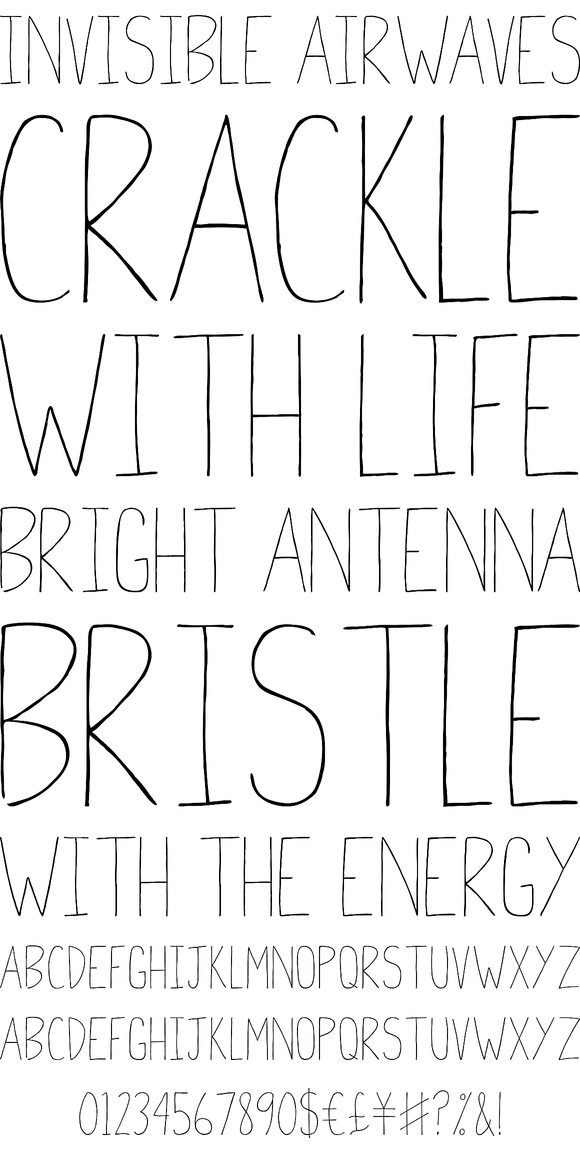
Hello I Like You
Foundry: Cultivated Mind
Hello I Like You was designed by Cindy Kinash. This is a hand drawn font, light and tall. Hello I Like You is fun, casual and works great for any of your design needs.